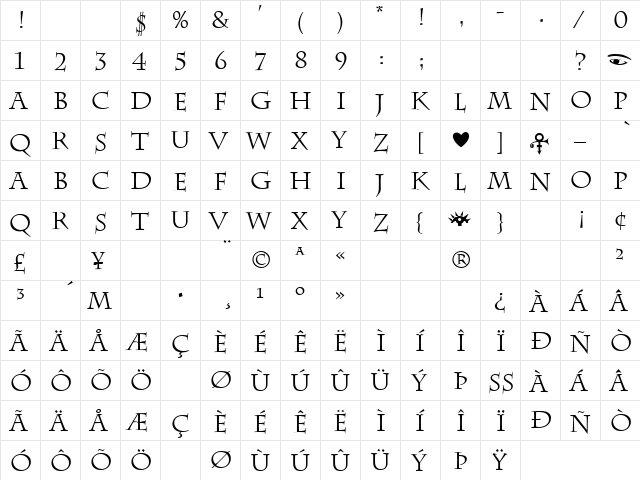
Diamonds Regular
Design Context for Diamonds Typeface
Diamonds is a composed and adaptable typeface that performs quietly and consistently across a wide range of design contexts.